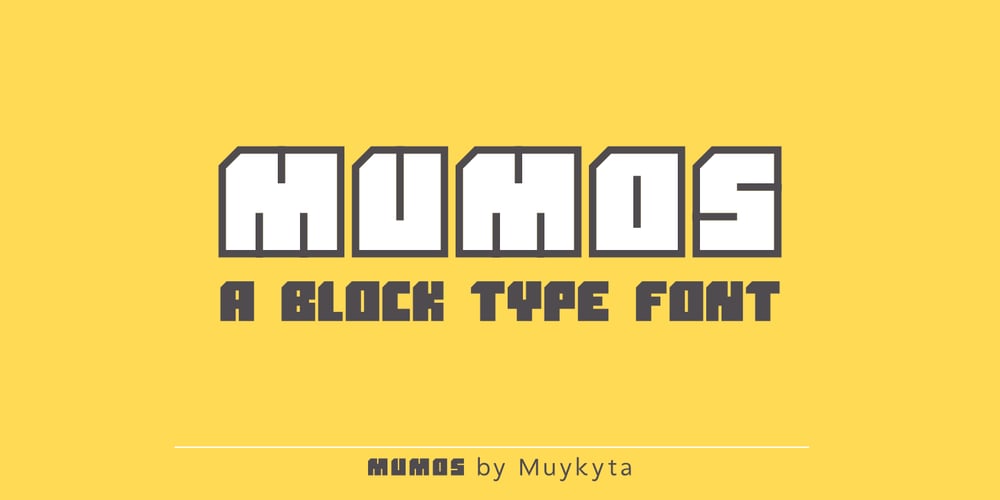
Mumos Font Family was designed by Santiago Silva and published by Muykyta. Mumos contains 3 styles and family package options. Mumos is a block type font. Is a font of thirteen units of height with straight terminations in which there is complete absence of curves. Although very basic is a dynamic typography with many possibilities thanks to its three styles, including open space, which facilitates the work with fillers without having to vectorize the glyphs.